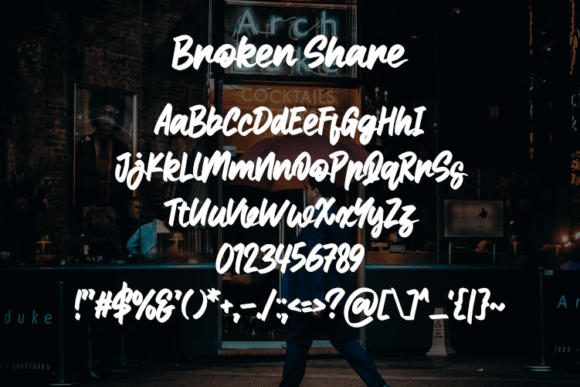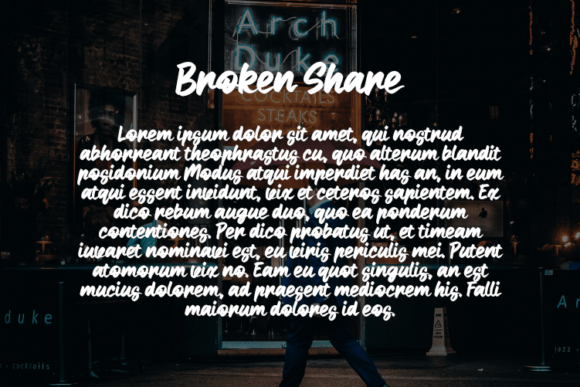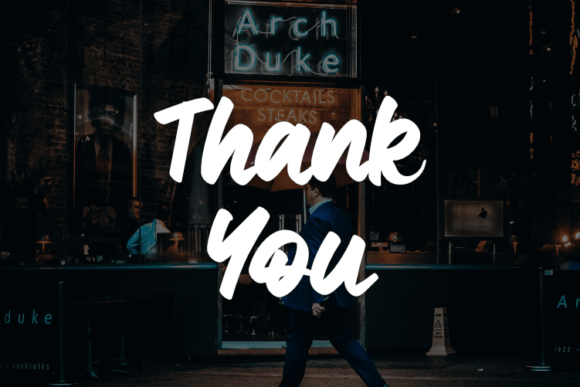
The Perfect Typography Match for Your Creative Vision
As you sit in front of your computer, staring at a blank canvas, waiting for inspiration to strike – it hits you. The perfect idea, the perfect concept, the perfect design. But something’s missing. The font, the typography, the overall aesthetic just doesn’t feel quite right. This is where the Broken Share Font comes in – a game-changing, versatile font that’s designed to elevate your creative endeavors to new heights.
This font is more than just a pretty face; it’s a powerful tool that can effortlessly enhance clothing designs, t-shirt artwork, and a wide range of other products. With its compatibility across all design software, the Broken Share Font delivers utmost flexibility to your artistic endeavors, making it a valuable addition to any designer’s toolkit.
Broken Share Font Key Features
- Unique Characteristics: Broken Share Font is designed with a distressed, hand-drawn aesthetic, featuring irregular lines and shapes to create a unique visual effect.
Broken Share Font Review
Overall, I think the Broken Share Font has some nice qualities that make it stand out, but it also has some limitations that might make it less desirable for certain projects.
- The unique, distressed design of the font adds a lot of character to text.
- The font’s irregularities give it a hand-drawn feel that can be very effective for creative projects.
- The font is highly customizable, with a wide range of styles and weights to choose from.
- The font’s distressed design can make it difficult to read at small sizes or in certain lighting conditions.
- The font may not be suitable for formal or professional projects, as it has a somewhat rough and informal feel.
- The font’s customizability can also be a double-edged sword, as it may be overwhelming for users who are not experienced in font customization.
The Broken Share Font is a great choice for creative projects where you want to add a unique, hand-drawn feel to your text. However, it may not be the best choice for formal or professional projects, or for users who are not experienced in font customization. With some careful planning and use, the Broken Share Font can be a powerful tool for adding visual interest to your text.
Broken Share Font: A Practical Application Guide
The Broken Share Font is ideal for:
- Creatives and designers looking for a unique and eye-catching font.
- Create a stencil of the font using a cutting mat and a craft knife.
- Apply the stencil to the wall and fill it with paint.
- Experiment with different colors and layering techniques to create a unique and dynamic design.
- Mix the Broken Share Font with other stencil fonts for a layered, textured look.
- Use stencils of natural forms, such as leaves or flowers, to add organic elements to the design.
- Combine the font with street art-inspired graphics, such as spray paint splatters or ripped paper textures.
- Choose a digital version of the font and apply it to a book cover design using a graphics editor.
Q: Can I customize the Broken Share Font to fit my design needs?
Yes, you can customize the Broken Share Font to some extent. However, due to its hand-drawn nature, the font’s design is quite fixed. You can try adjusting the font size, color, and spacing to achieve the desired effect. Additionally, you can use font manipulation software or plugins to experiment with customizing the font’s appearance. Keep in mind that excessive